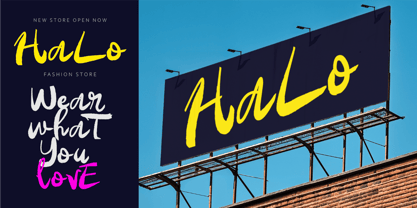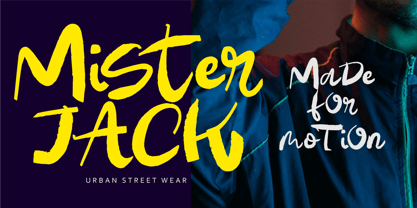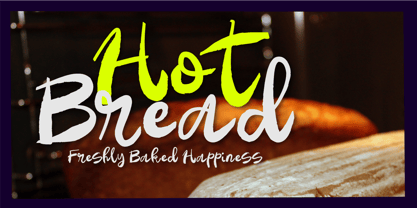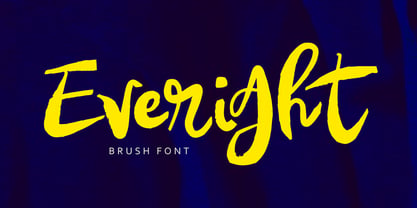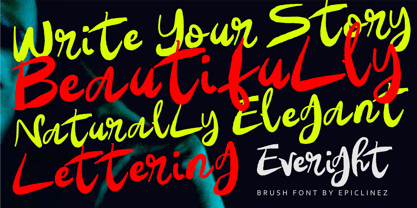
Everight
The Everight Font Family was designed by Aldy Sidik and published by Epiclinez. Everight contains 1 styles. More about this family
Everight is a modern brush calligraphy font with a rough, free-flowing style that brings natural energy and handcrafted character into your designs. Featuring expressive brush strokes, textured details, and smooth modern curves, Everight delivers an authentic handwritten feel that looks bold, stylish, and full of personality.
Perfect for logo design, product branding, packaging, fashion labels, social media graphics, posters, movie titles, signature logos, invitations, merchandise, photography branding, and creative projects that need a modern artistic touch. Its freestyle calligraphy look makes every word feel dynamic, elegant, and effortlessly eye-catching.
Whether you want to create a strong brand identity or add a raw handmade vibe to your artwork, Everight helps your typography stand out with confidence and style.